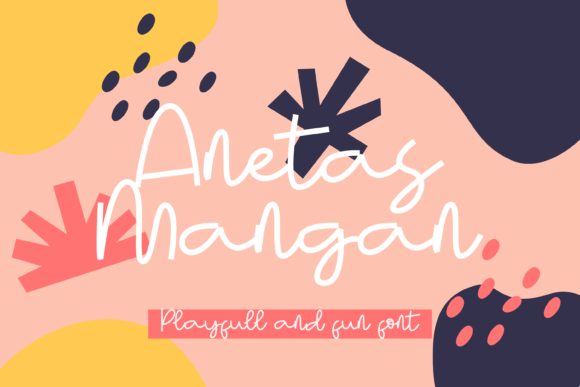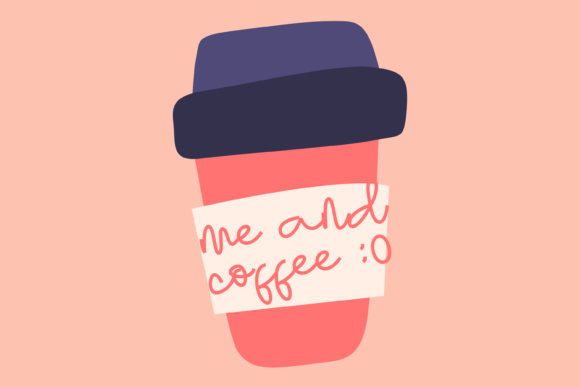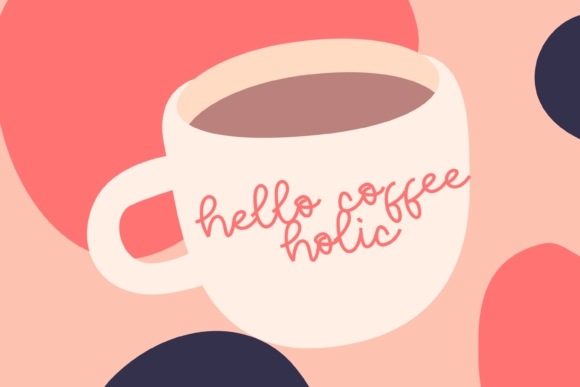
About Anetas Mangan Font
Anetas Mangan is a fun and quirky handwritten font. Cursive and natural-looking, this font will make any of your lovely creations seem authentic and friendly!